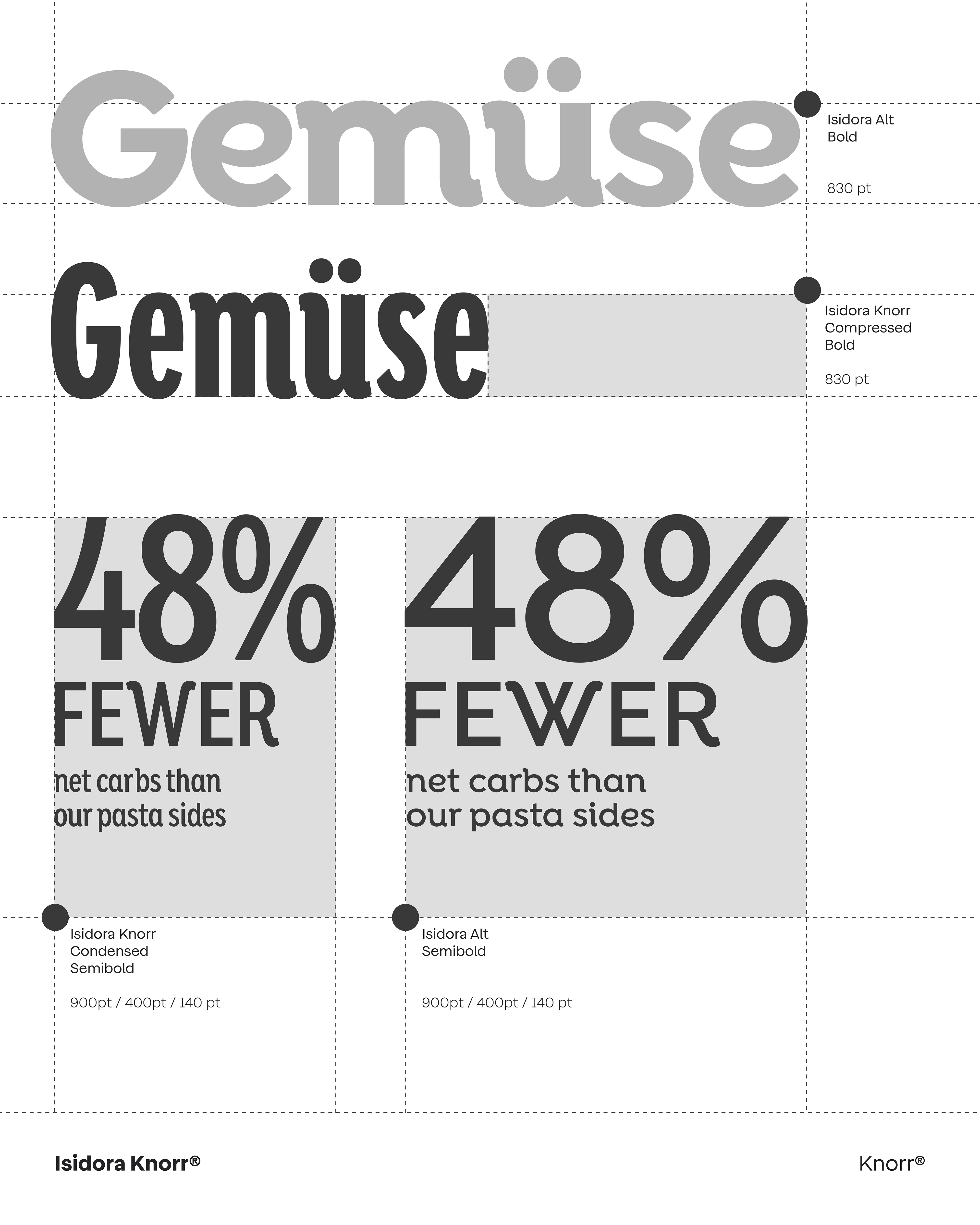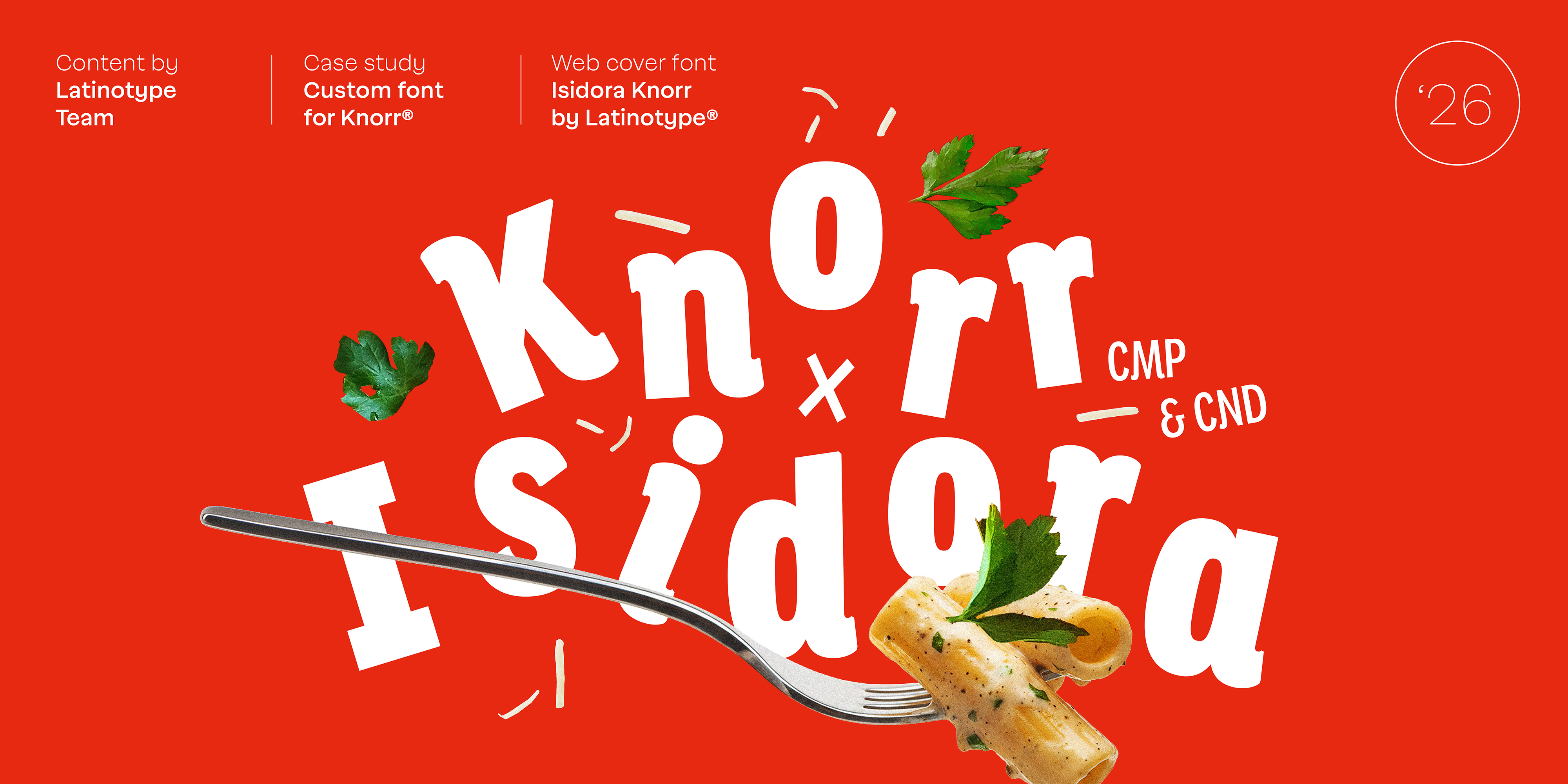
Same, Isidora.
Optically Optimized for Knorr’s Packaging.
Knorr, one of the world’s most recognized food brands, came to Latinotype through JKR — the global branding consultancy behind some of the most recognized packaging redesigns in the world — with a precise typographic challenge: Isidora, the typeface used across the brand’s campaigns, needed to be optimized for packaging, where surfaces are small, and every millimeter counts.
Soup sachets, bouillon cubes, condiment jars: reduced surfaces carrying product names, flavors, ingredients, nutritional tables, and instructions across multiple languages and markets. The challenge wasn’t just compression — it was designing for very small sizes, a discipline with its own history in typography: optical optimization for minimum body text, where every decision about form, spacing, and weight determines whether a word reads or disappears.
Designer Felipe Sanzana worked through the customization iteratively. Adjusting proportions on screen wasn’t enough — every decision was tested against small printed proofs, repeating the cycle until the typeface performed with precision under real industrial packaging conditions. Internal proportions were recalculated, Semi-bold and Black weights redrawn to establish a clear hierarchy, and spacing and kerning meticulously adjusted to guarantee consistent readability at every scale.
The result is an Isidora built for the real constraints of mass-market packaging. The same personality as the campaigns. Sharper functionality. More room for the photography that sells.